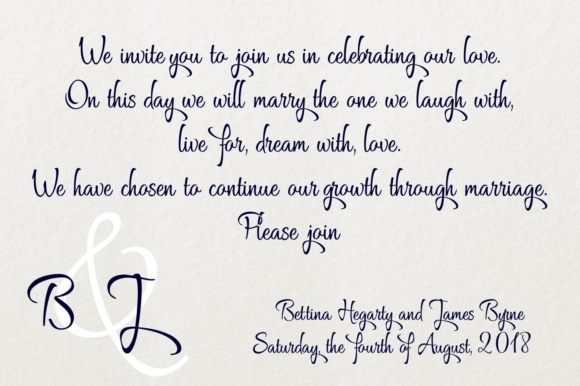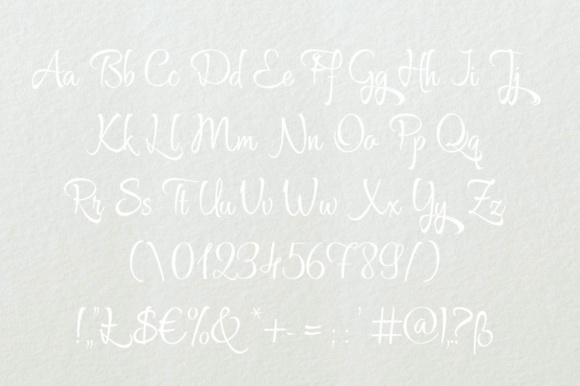
The Quest for the Perfect Font: Discovering Grafyk
I still remember the design project that led me to Grafyk. I was working on a wedding invitation suite, and my client had a very specific vision: elegant, yet modern and playful. I spent hours scouring font libraries, but nothing seemed to fit the bill. That was until I stumbled upon Grafyk, a gorgeous handwritten script that instantly captured the essence of what I was looking for.
First Impressions: A Bold and Bouncy Script
Grafyk is a bold and bouncy script font with a calligraphic feel that’s perfect for headlines and invitationals. Its handwritten charm makes it an excellent choice for designers, crafters, and creative hobbyists looking to add a touch of personality to their work. What I love about Grafyk is its ability to convey a sense of elegance and sophistication without being too formal or stuffy.
What I Love About Grafyk
- ✨ Unique Character: Grafyk has a distinct personality that sets it apart from other script fonts.
- ✅ Ease of Use: It’s incredibly easy to use, even for those who are new to working with script fonts.
- 💫 Versatility: Grafyk works well for both digital and print projects, from social media graphics to wedding invitations.
- 📚 OpenType Features: Grafyk supports OpenType features, including glyphs and stylistic alternates, which allow for a high degree of customization.
While Grafyk is an excellent font, there are a few things to keep in mind. For example, ⚠️ it may not be the best choice for body text due to its bold and bouncy nature. Additionally, 🤔 some users may find the font’s quirks and imperfections to be a bit distracting if they’re not used to working with handwritten scripts.
The Story Behind Grafyk
Grafyk was designed by a team of typographers who wanted to create a font that was both elegant and playful. Inspired by traditional calligraphy, Grafyk’s creators aimed to craft a font that was easy to read and fun to use. The result is a beautiful, bouncy script font that’s perfect for a wide range of design projects.
Q: What type of projects is Grafyk best suited for?
A: Grafyk is perfect for headlines, invitationals, and other design projects that require a touch of elegance and personality.
Q: Does Grafyk support OpenType features?
A: Yes, Grafyk supports OpenType features, including glyphs and stylistic alternates, which allow for a high degree of customization.